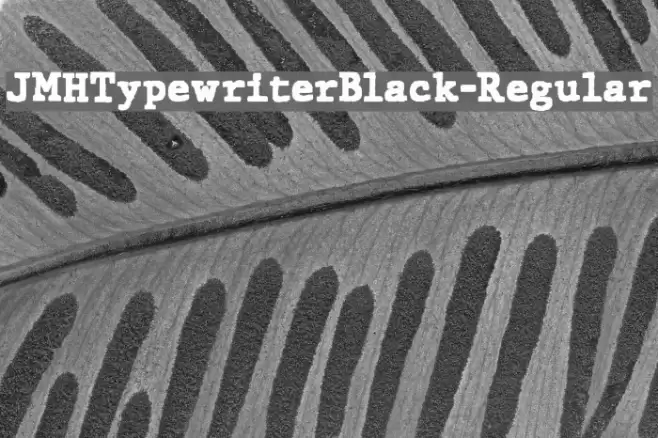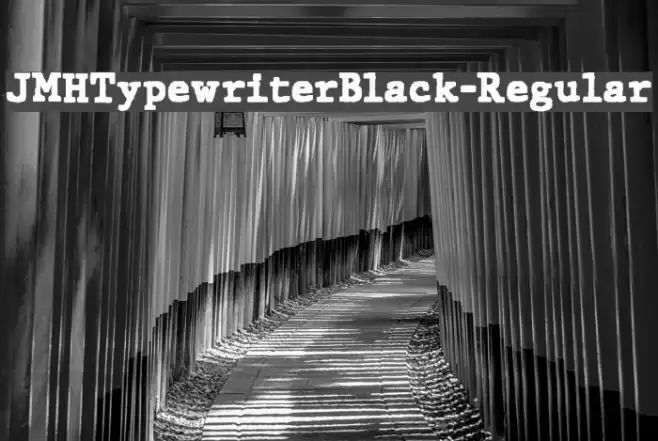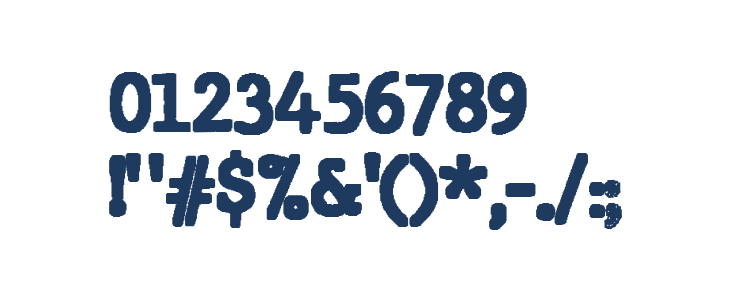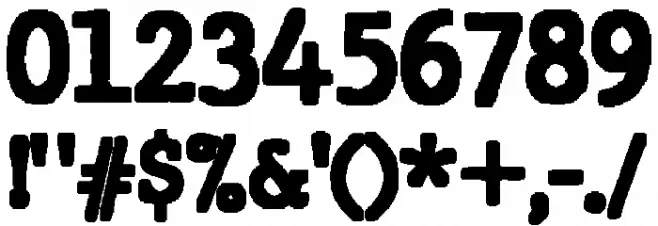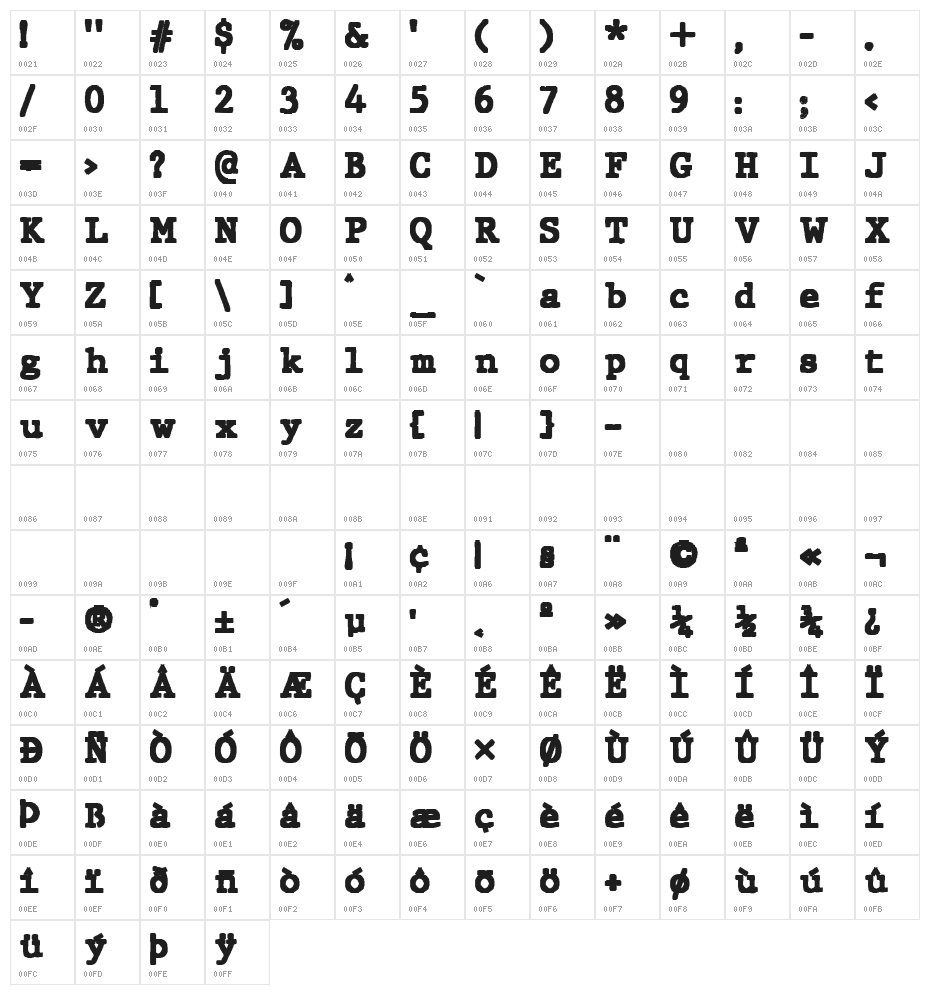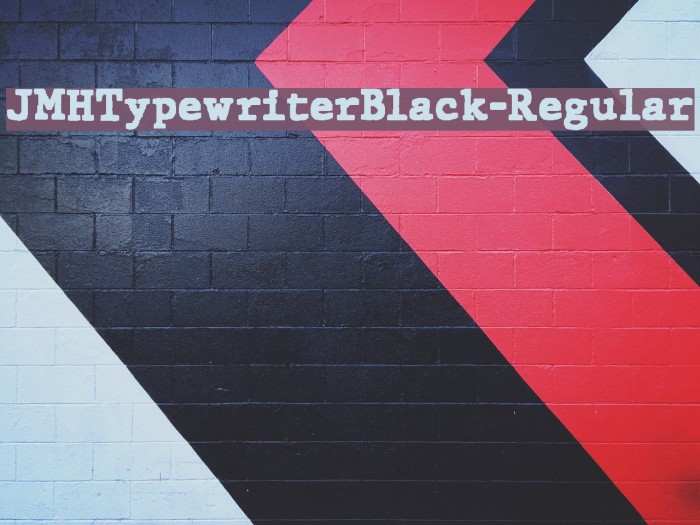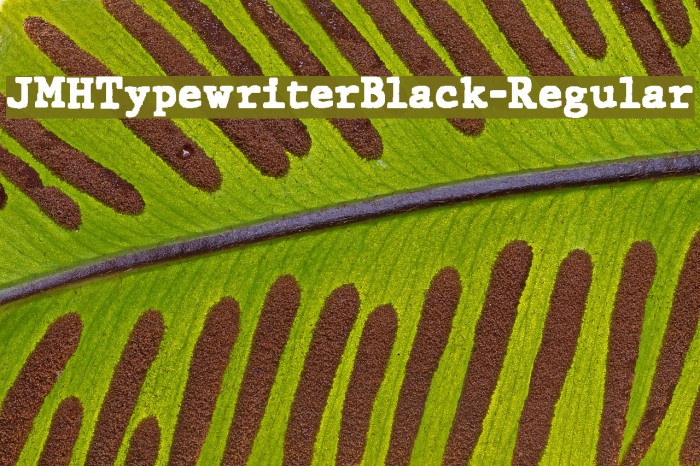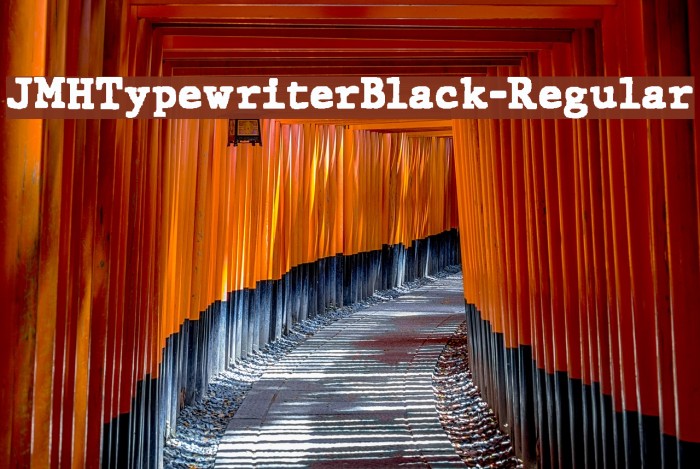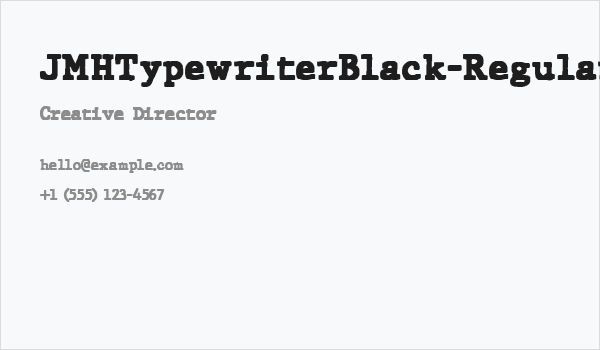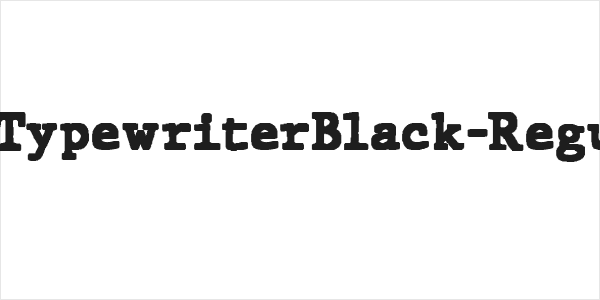
JMHTypewriterBlack-Regular Font
JMHTypewriterBlack-Regular Description
This typeface exudes a classic typewriter aesthetic, characterized by its monospaced letterforms and bold, uniform strokes. Each character is distinct, with a slightly rugged texture that adds a vintage feel. The uppercase and lowercase letters maintain a consistent height, while the numerals and special characters are clear and easily distinguishable. The font's design is reminiscent of old mechanical typewriters, offering a nostalgic touch that is both functional and visually appealing.
A bold, monospaced typewriter-style font with a vintage feel from Uncategorized fonts.
- Proposed Projects: Ideal for projects that require a retro or vintage theme, such as posters, book covers, or branding for artisanal products. It can also be used in digital designs that aim to evoke nostalgia or convey a sense of authenticity.
- Overall Style: Vintage
- Use Case: Headlines, Logos, Branding